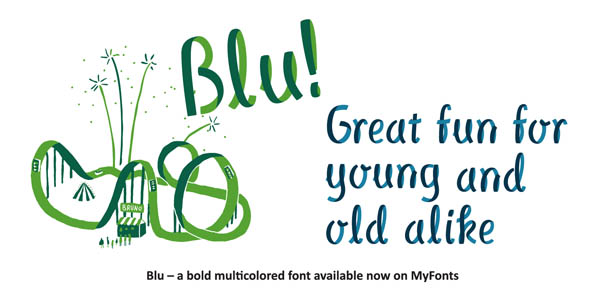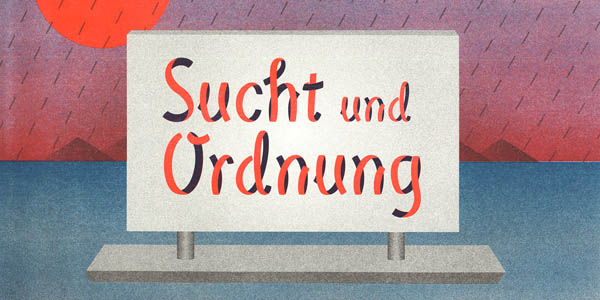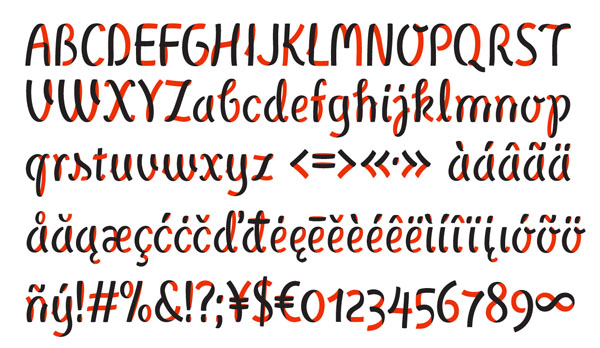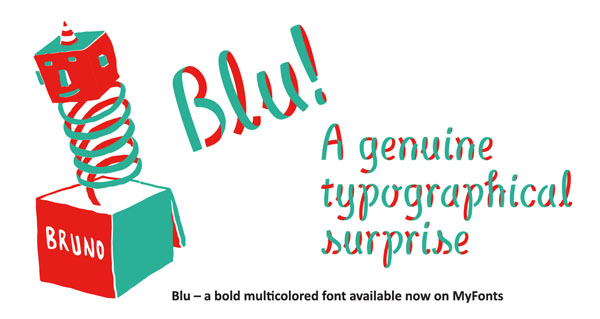
Blu – Ribbon Typeface.
This multilayered ribbon font by Leo Koppelkamm is inspired by bicycle tires and paper streamers. Blu comes with an InDesign plugin for Windows and Mac which makes the use of this multilayered font very easy. The Blu font looks perfect in designs for children or in combination with funny illustrations.